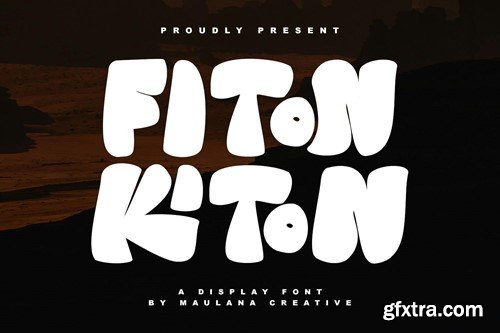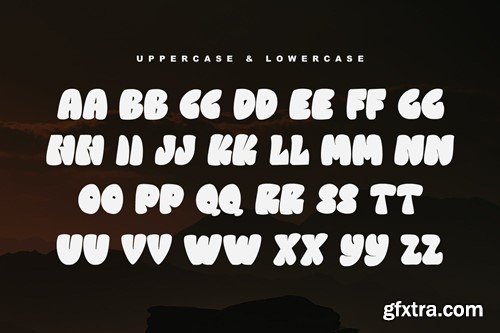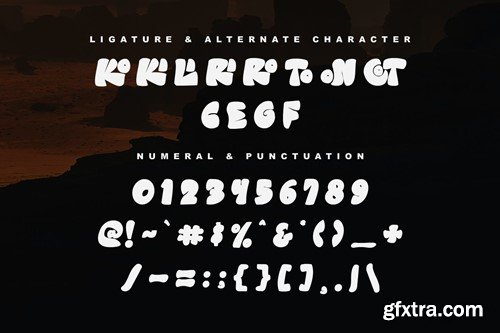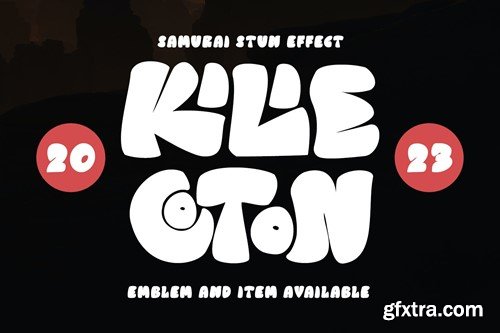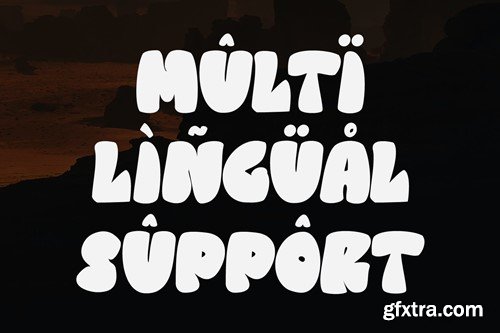
Fiton Kiton Display Font
Fiton Kiton a display font, fun character with a bit of ligatures. To give you an extra creative work. Fiton Kiton font support multilingual more than 100+ language.